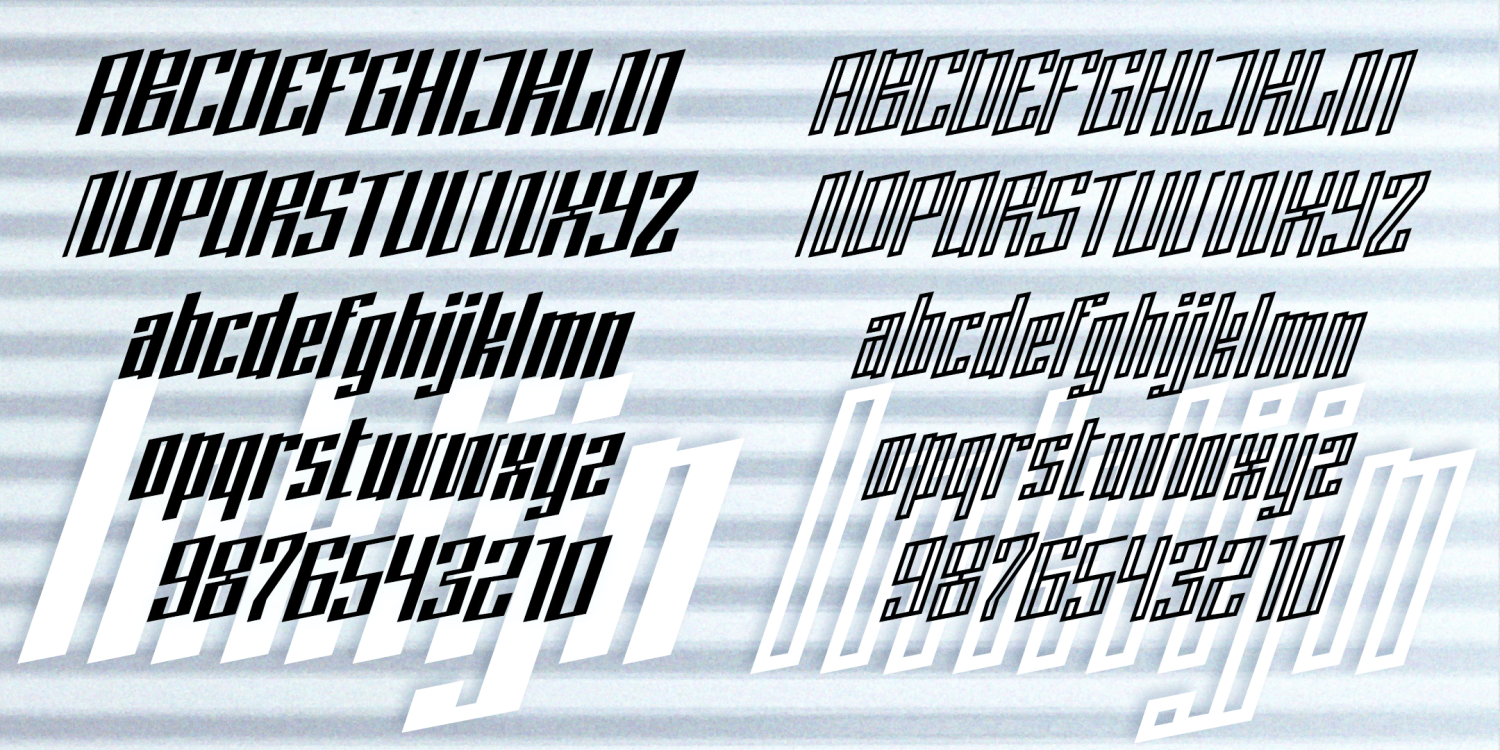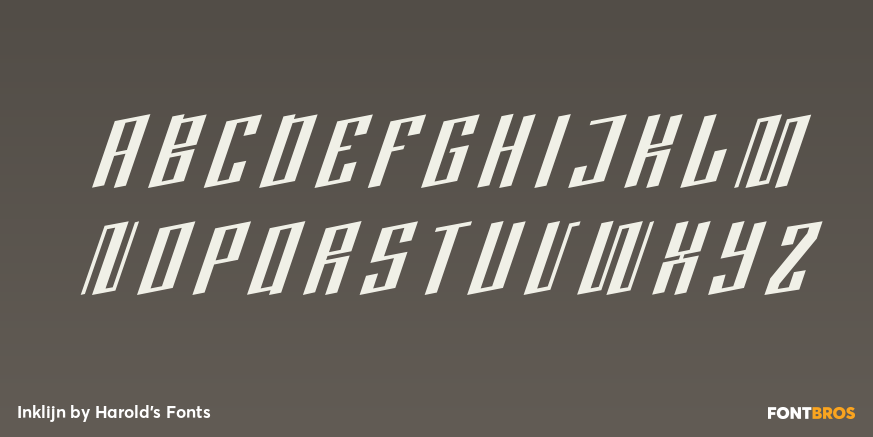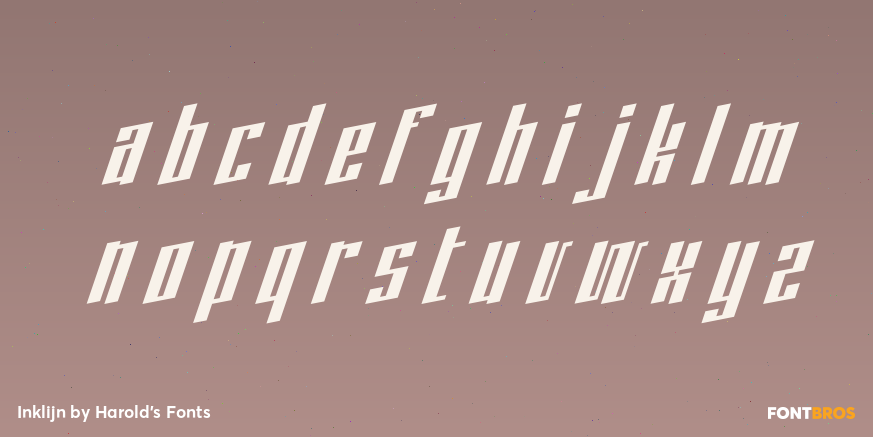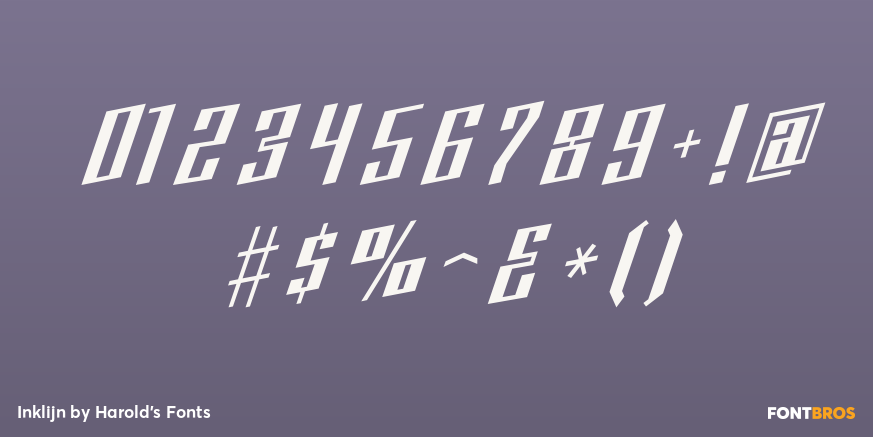
Inklijn
Font Family by Harold's Fonts
INKLIJN has a futuristic, angular aesthetic, oblique with the forward movement of mid-20th century design, but fresh for contemporary usage. It was inspired by a an original alphabet study from 1956 by Dutch designer Albert Klijn.